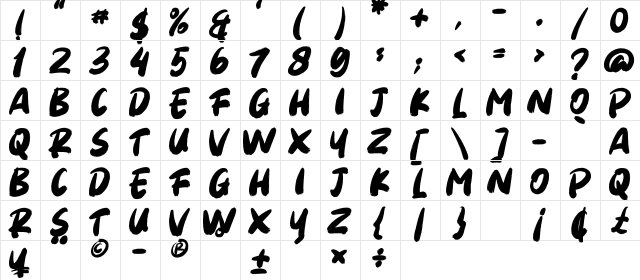
Rhodeport Regular_DEMO Regular
| Designer | Omotu 2020 |
Design Context for Rhodeport Regular_DEMO Typeface
Rhodeport Regular_DEMO is a composed and adaptable typeface that performs quietly and consistently across a wide range of design contexts.